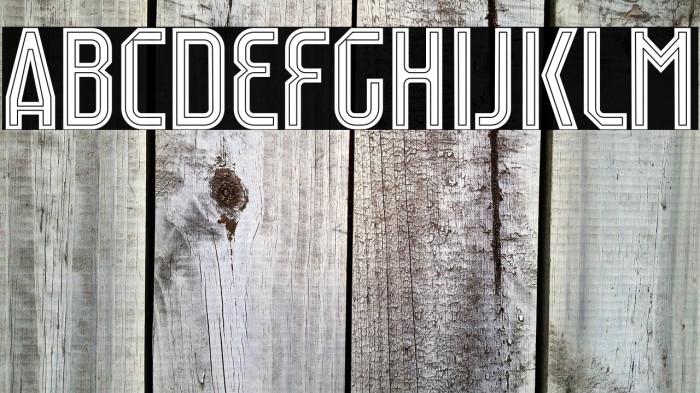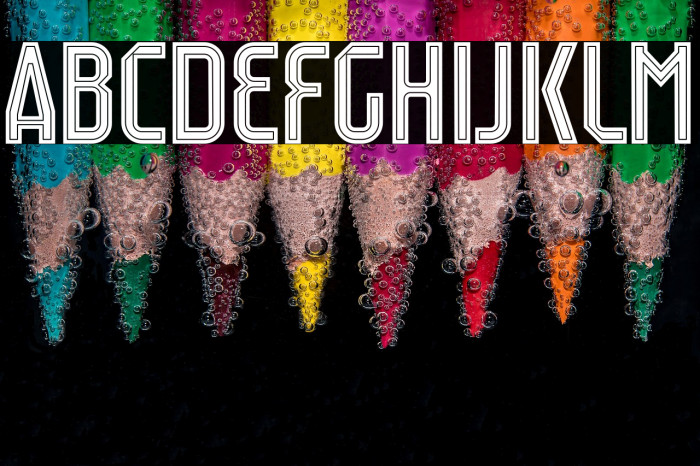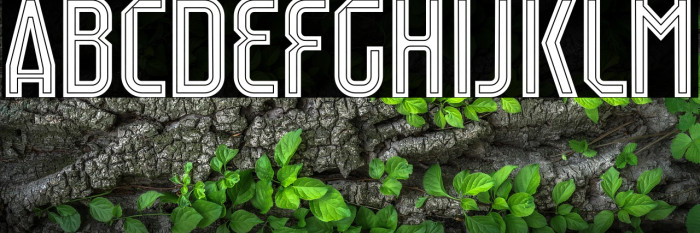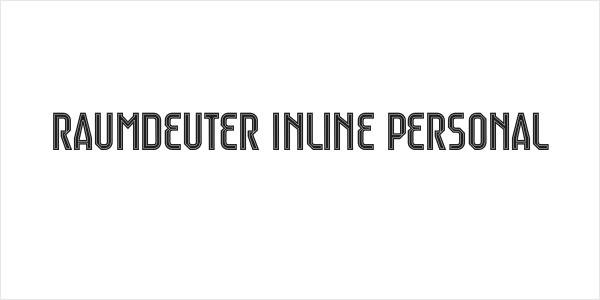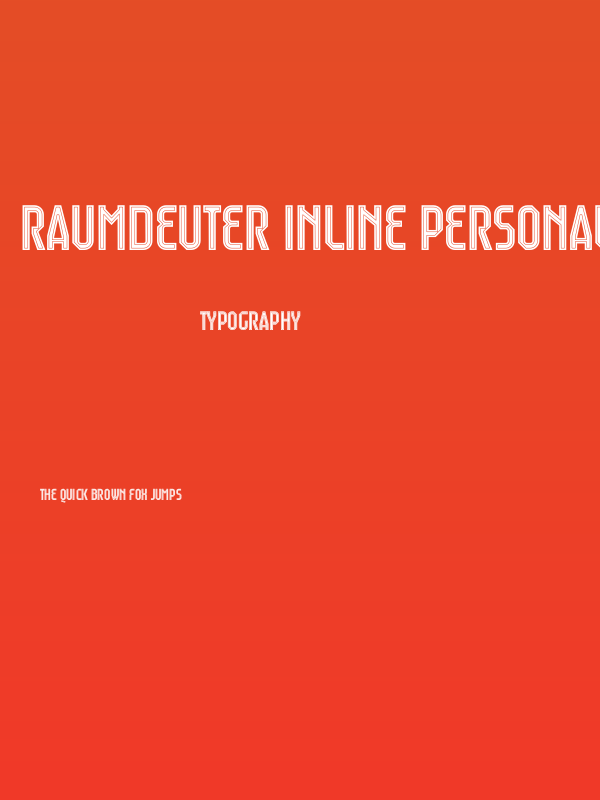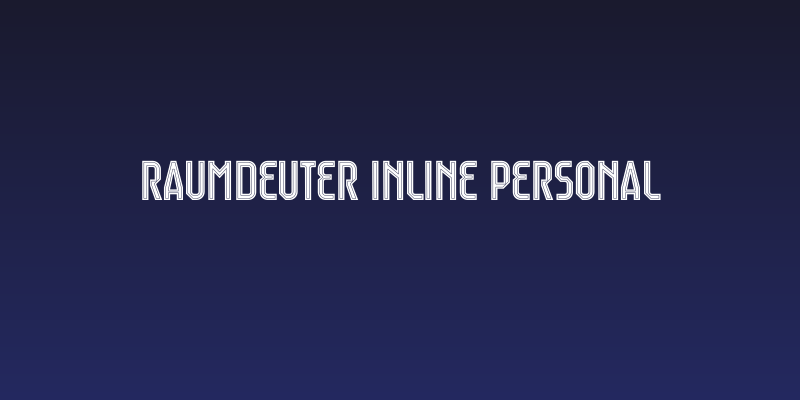
Raumdeuter Inline Personal Font
Raumdeuter Inline Personal Description
This font features a bold and striking inline design, characterized by its geometric and angular letterforms. The uppercase letters are particularly prominent, with a strong presence that commands attention. The inline style adds a layer of depth and complexity, making it ideal for standout headlines and titles. The numbers and special characters maintain the same bold aesthetic, ensuring consistency across all text elements. The font's unique style is both modern and slightly retro, offering versatility for various design projects.